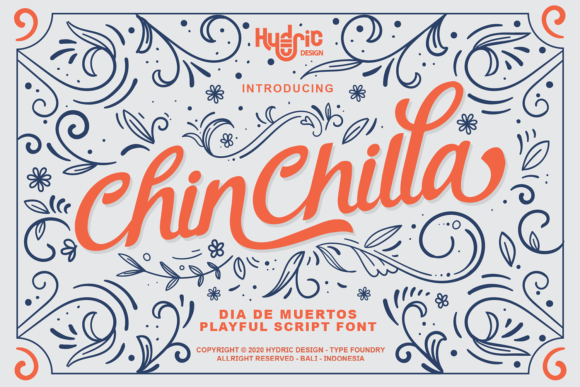
Say hello to Chincilla, the enchanting script font that will add a touch of whimsical beauty to your designs. Inspired by the graceful lines of "Beauty and the Beast," this font embodies the magic of the classic fairy tale. Each letter dances across the page like a delicate ballet, inviting you to escape into a world of elegance and wonder.
With Chincilla, you can craft captivating titles, logos, product posters, and websites that exude both charm and sophistication. Its playful nature adds a touch of whimsy to menus, books, and social media posts, making them impossible to resist.
Whether you're creating enchanting invitations, stylish branding, or simply adding a sprinkle of fantasy to your everyday designs, Chincilla is the perfect choice. Its versatility knows no bounds, so let your imagination run wild and experience the transformative power of this beautiful font today.